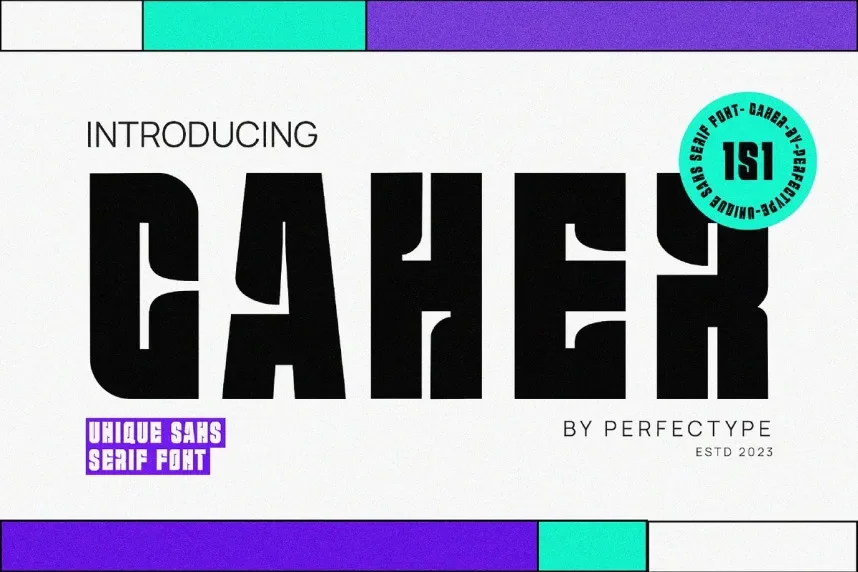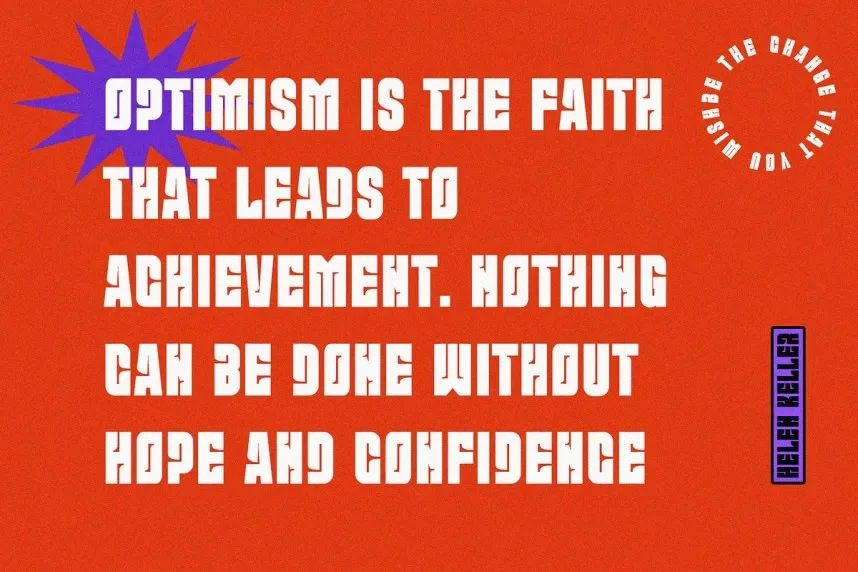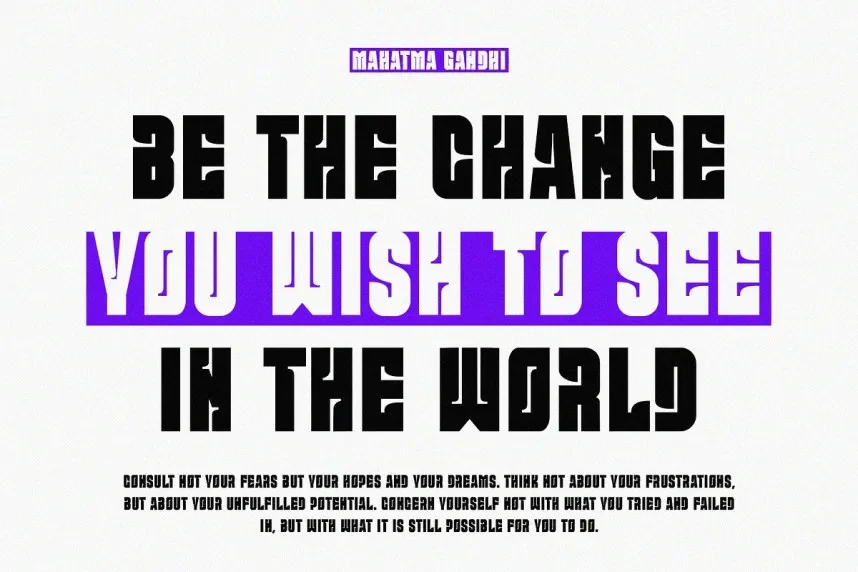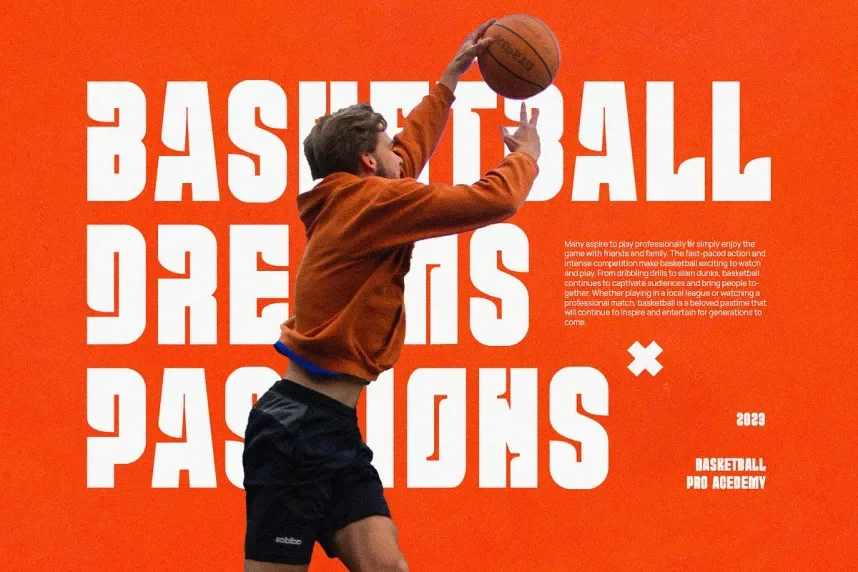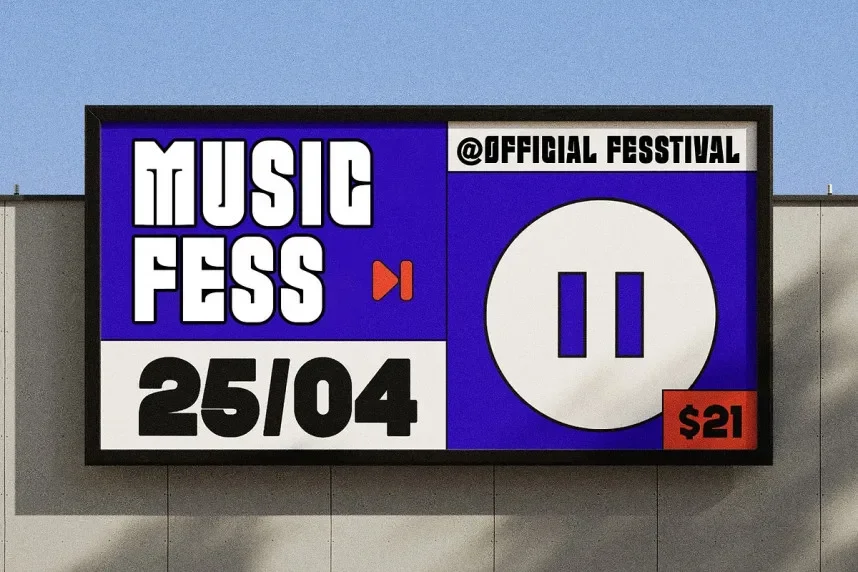
Caher Font is a versatile sans-serif typeface that balances contemporary design with readability. Its smooth curves and clean lines make it perfect for a wide range of design applications, from branding to website text and social media posts.